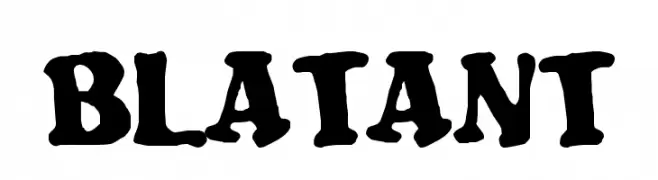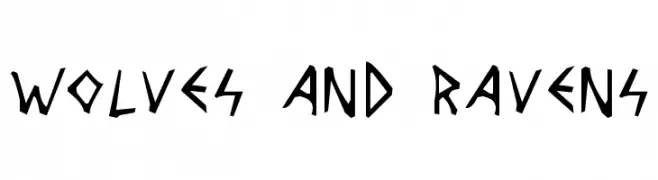
( Fonts by Jacob Fisher - www.pizzadude.dk )
A bold, playful font with rounded characters and a cartoonish outline.
( Fonts by Jacob Fisher - www.pizzadude.dk )
A bold, textured font with a rugged, hand-drawn appearance.
( Fonts by Jacob Fisher - www.pizzadude.dk )
A playful, hand-drawn font with irregular and whimsical letterforms.
( Fonts by Divide By Zero! - fonts.tom7.com )
A playful, hand-drawn font with looped, doodle-like characters.
( Fonts by Jacob Fisher - www.pizzadude.dk )
A bold, aggressive font with sharp, angular lines and dynamic slant.
( Fonts by Jacob Fisher - www.pizzadude.dk )
A tall, narrow font with high contrast and a modern, sophisticated style.
( Fonts by Jacob Fisher - www.pizzadude.dk )
A playful, bubble-like font with rounded, bold characters.
( Fonts by Cumberland Fontworks - http://www222.pair.com/sjohn/fonts.htm - S. John Ross )
A rugged, angular font with a hand-carved, tribal aesthetic.
( Fonts by Jacob Fisher - www.pizzadude.dk )
A bold, playful font with thick strokes and rounded edges.